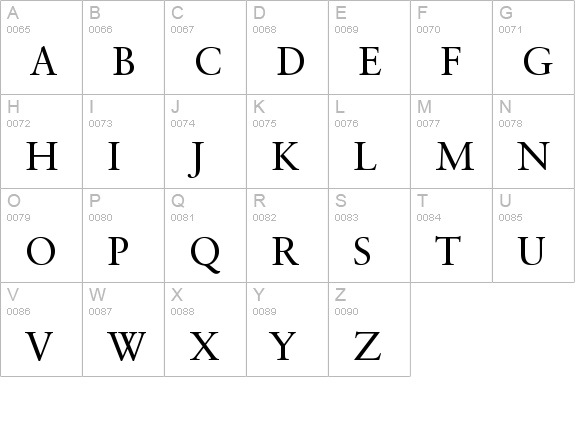
Classical Garamond is a timeless and elegant serif font that exudes sophistication and refinement. With its delicate serifs and graceful curves, Classical Garamond is a perfect choice for projects that require a touch of classic beauty. This font is ideal for use in print materials such as books, magazines, invitations, and more. What makes Classical Garamond even more appealing is that it is available for free download at FontsMarket.com. This means that you can easily access and use this stunning font in your designs without any cost. Whether you are a professional designer or a hobbyist looking to elevate your projects, Classical Garamond is a versatile and stylish font that is sure to make a lasting impression. Download it today and add a touch of timeless elegance to your creations.